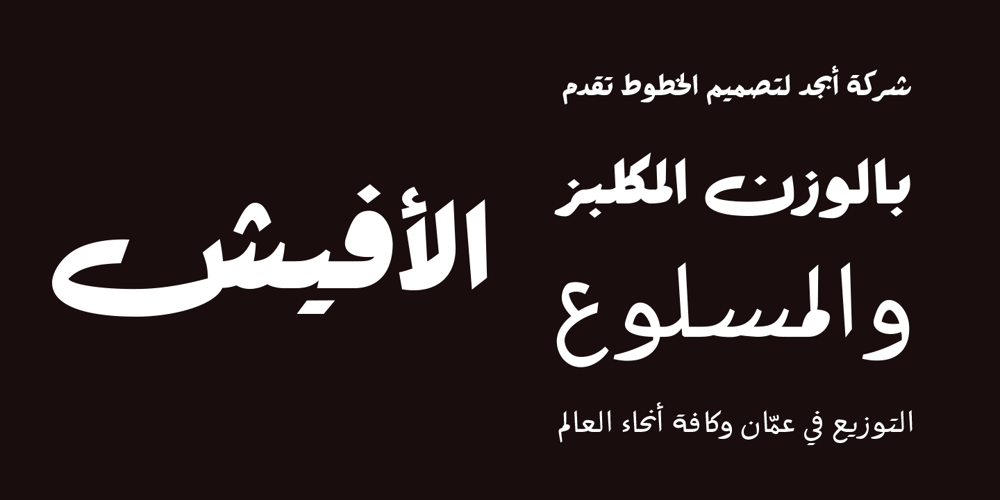
Afeesh Font Family was designed by Ali Almasri and published by Abjad. Afeesh contains 5 styles and family package options. The Afeesh typeface is an attempt to create a solid and robust type family, that is based on the Ruq’a calligraphy style. Following the Egyptian style of drawing Ruq’a, which was very popular on movie posters during the 50s-70s. The typeface comes with an extensive set of ligatures, and opentype features such as swash and stylistic alternates. Arabic, Farsi, Urdu, in addition to Kurdish are supported.